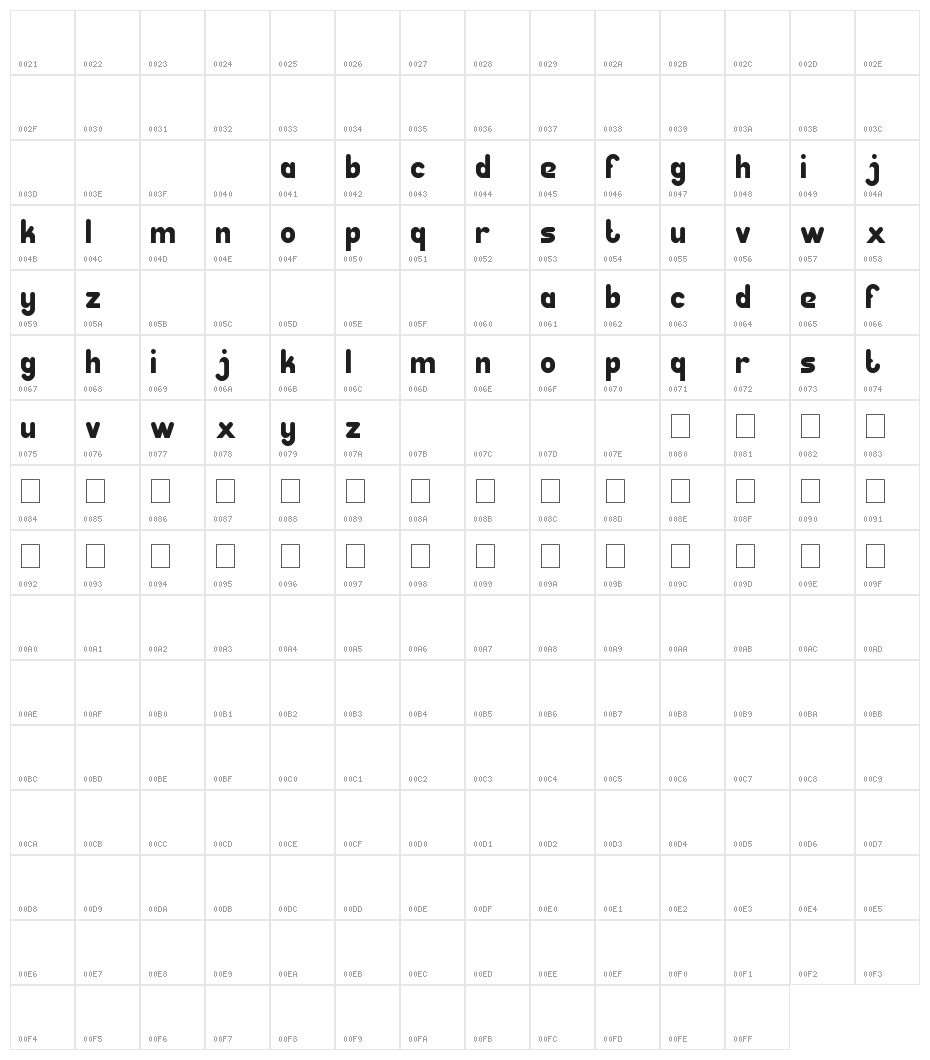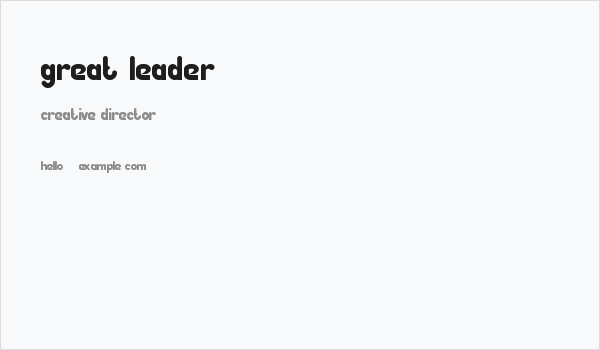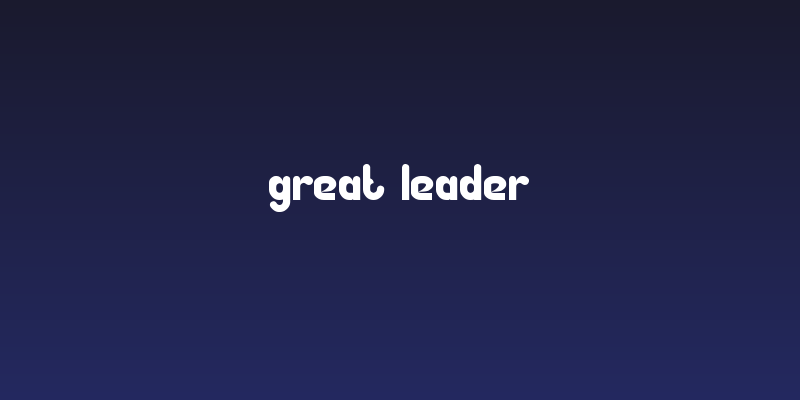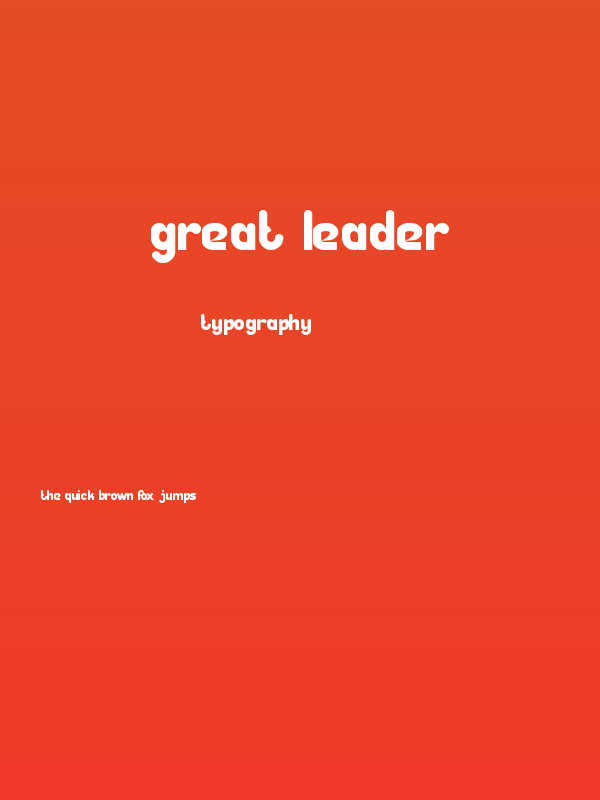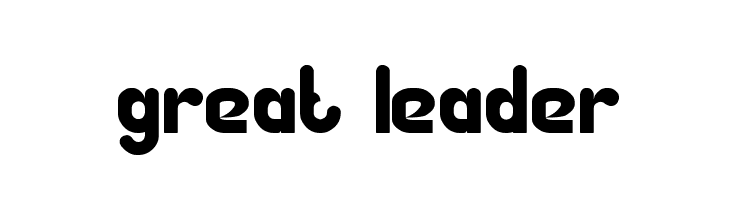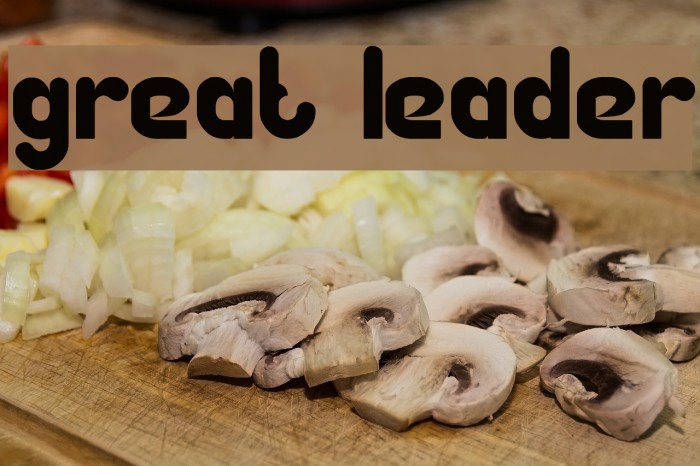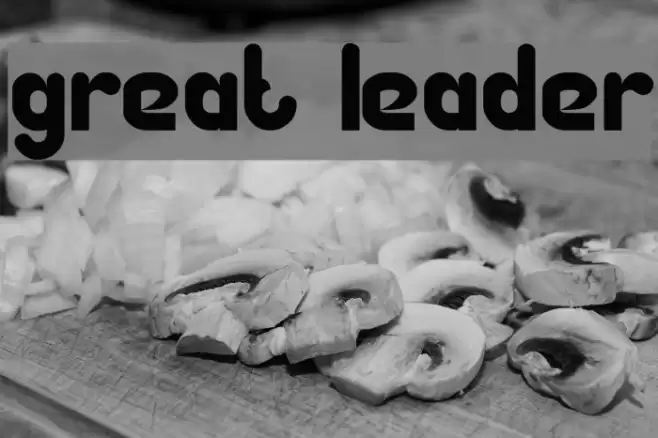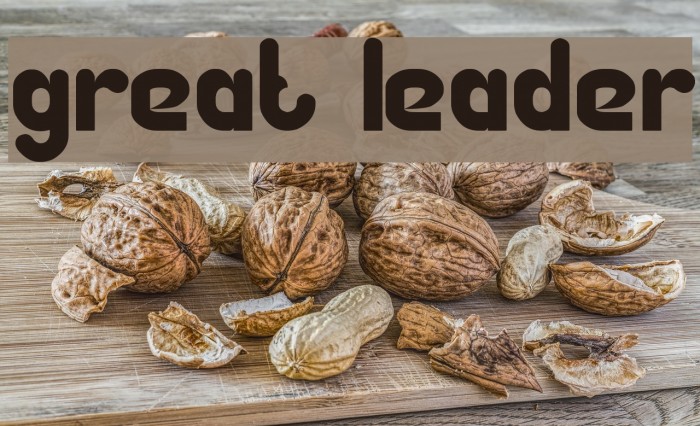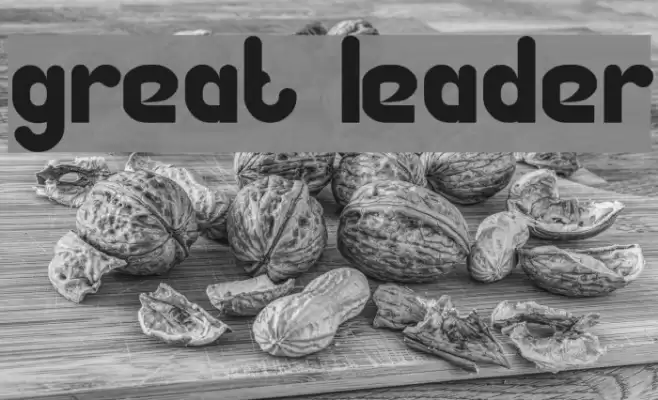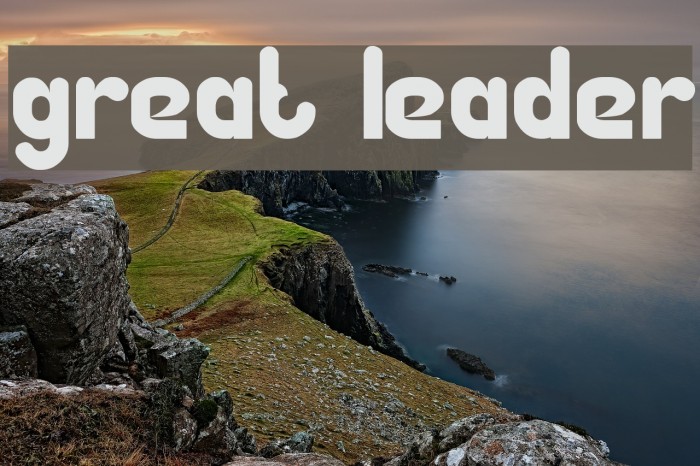
Great Leader Font
Great Leader Description
This font features a bold and playful design with rounded edges and a uniform thickness throughout each character. The letters are well-spaced, providing a clean and approachable look. Its unique style combines elements of both modern and retro aesthetics, making it versatile for various design projects. The font's boldness ensures high readability, while the rounded forms add a friendly and inviting touch. This makes it suitable for both digital and print media, where a strong yet approachable presence is desired.
| Proposed Projects | Ideal for branding, children's books, playful posters, and modern advertising campaigns. |